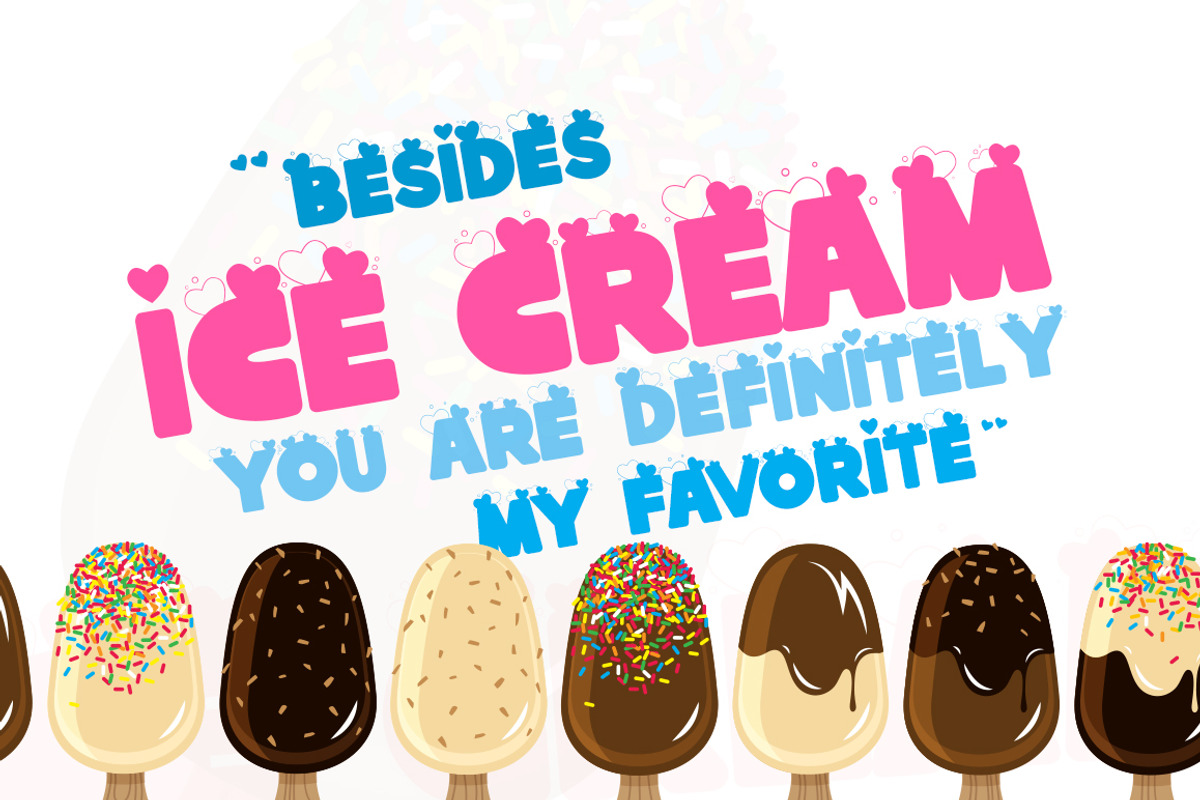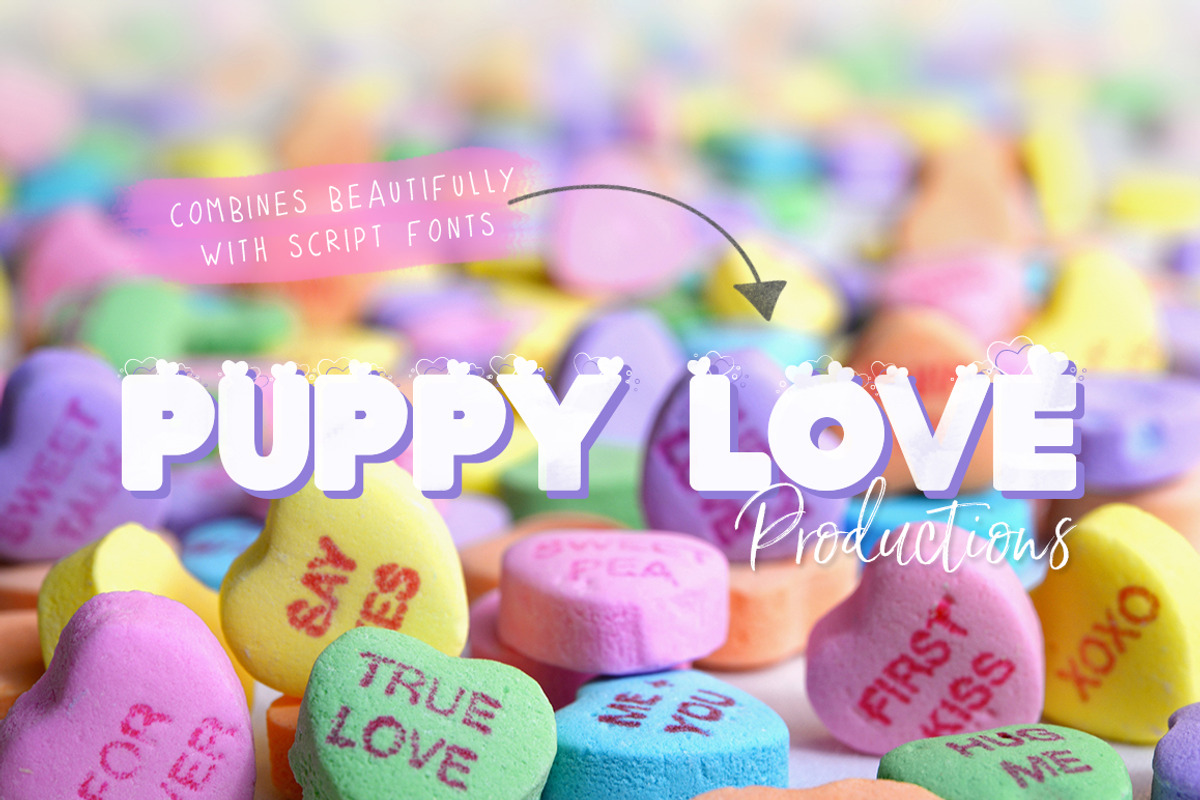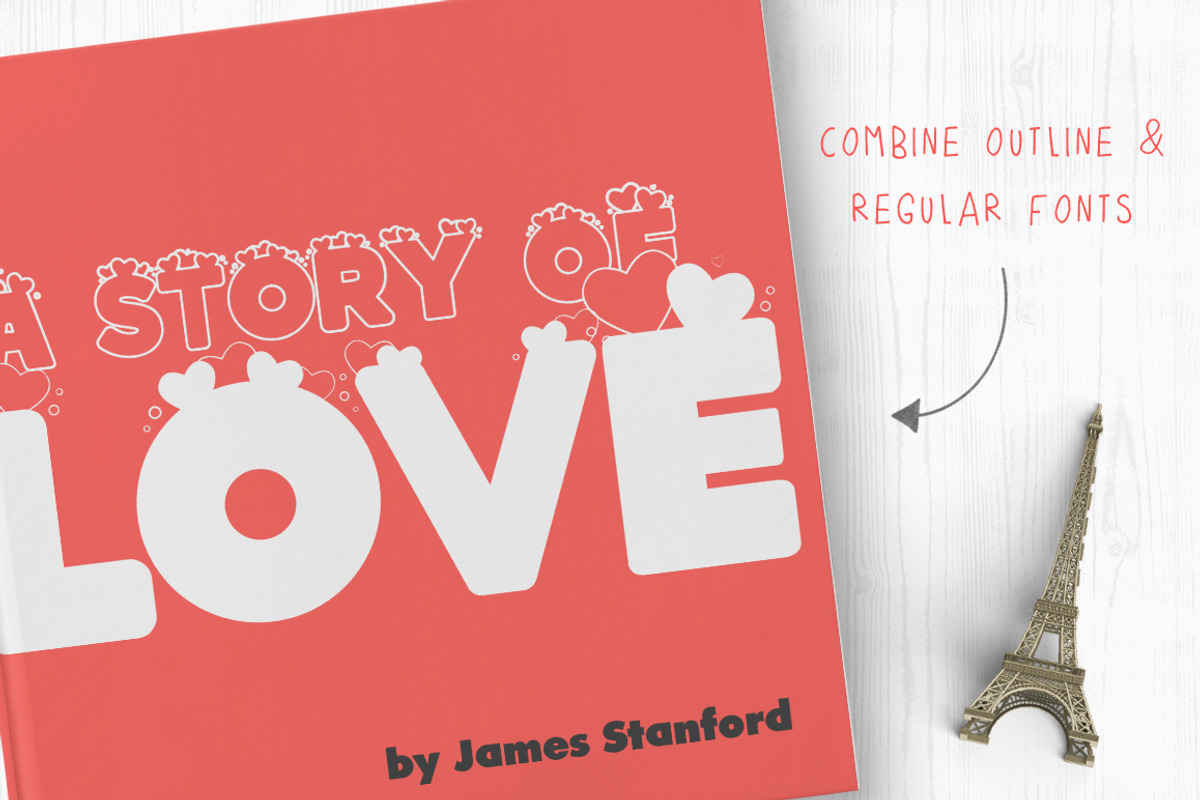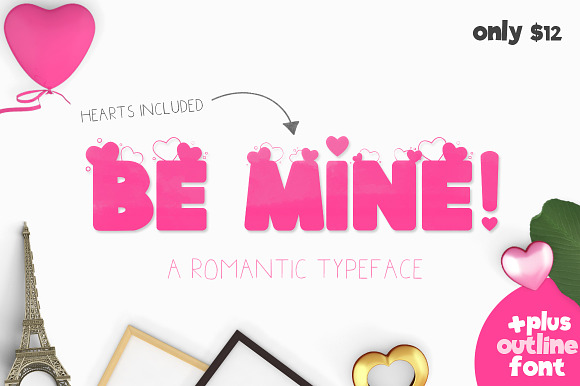
Be Mine (Valentines Day Font)
Introducing Be Mine.. a brand new font, perfect for Valentines day.
Be Mine (Valentines Day Font) by Salt & Pepper Designs fits naturally into Branding, posters, packaging, typography.